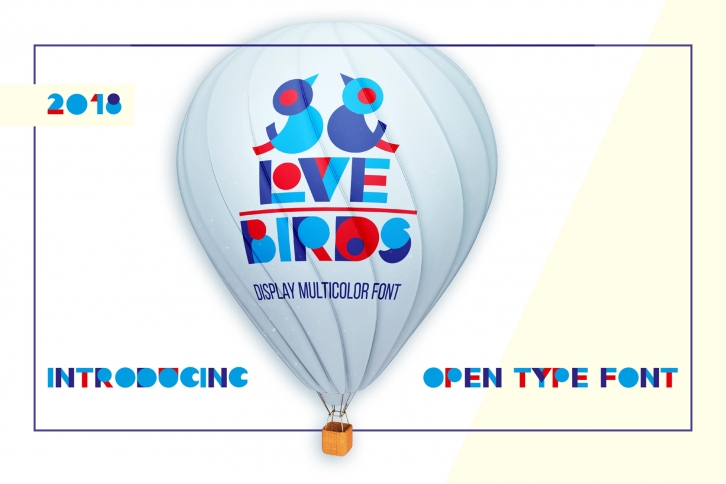
Love Birds is a stunning geometric display font, perfect for completely contemporary designs that need a color block appeal. This gorgeous font comes in both OTF and SVG file types, making this color font versatile enough to suit all your design needs.